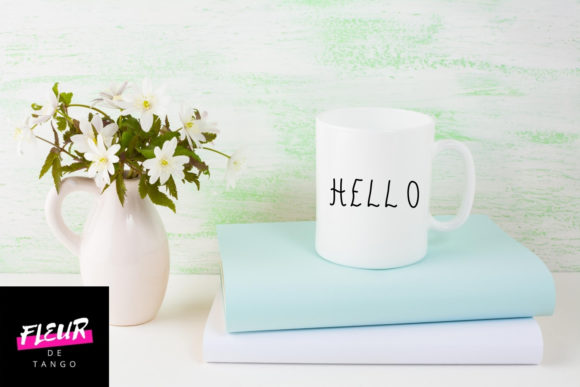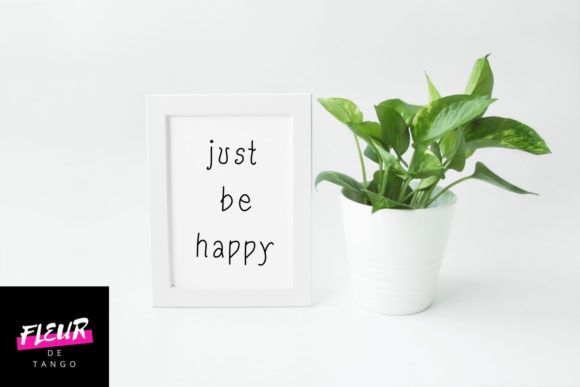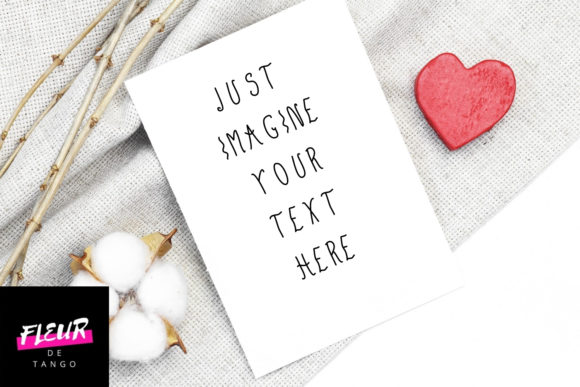
Introducing Chaotica Font: The Sweet and Friendly Handwritten Font for Your Creative Projects
Are you a designer, crafter, or DIY enthusiast looking for a font that can add a personal touch to your projects? Look no further than Chaotica Font, a sweet and friendly handwritten font that’s perfect for a wide range of designs. With its natural and unique style, Chaotica Font is incredibly versatile and can be used for various creative projects, from branding and advertising to crafting and scrapbooking.
The Unique Characteristics of Chaotica Font
Chaotica Font is a handwritten font that’s designed to look natural and effortless. Its unique style is characterized by:
- Fluid strokes: Chaotica Font features fluid strokes that give it a natural, handwritten look.
- Unique letterforms: Each letterform in Chaotica Font is unique, with its own personality and character.
- Warm and inviting feel: The font has a warm and inviting feel that’s perfect for creating a personal connection with your audience.
The Benefits of Using Chaotica Font
So, why should you use Chaotica Font for your creative projects? Here are just a few benefits:
- Versatility: Chaotica Font is incredibly versatile and can be used for a wide range of designs, from formal to informal.
- Personality: The font has a unique personality that can help your designs stand out from the crowd.
How to Use Chaotica Font in Your Designs
Chaotica Font can be used in a variety of designs, including:
- Branding and advertising: Use Chaotica Font to create a unique and memorable brand identity.
- Crafting and scrapbooking: Add a personal touch to your craft projects with Chaotica Font.
- Social media graphics: Use Chaotica Font to create eye-catching social media graphics.
- Wedding and event planning: Chaotica Font is perfect for creating beautiful wedding and event invitations.
Tips for Getting the Most Out of Chaotica Font
Here are a few tips for getting the most out of Chaotica Font:
- Experiment with different sizes and colors: Try out different sizes and colors to see what works best for your design.
- Pair it with other fonts: Chaotica Font pairs well with other fonts, so don’t be afraid to experiment with different combinations.
- Use it consistently: Use Chaotica Font consistently throughout your design to create a cohesive look.
In conclusion, Chaotica Font is a sweet and friendly handwritten font that’s perfect for designers, crafters, and DIY enthusiasts. Its natural and unique style makes it incredibly versatile and suitable for a wide range of designs. With its fluid strokes, unique letterforms, and warm and inviting feel, Chaotica Font is sure to add a personal touch to your creative projects. So why not give it a try and see what amazing designs you can create?